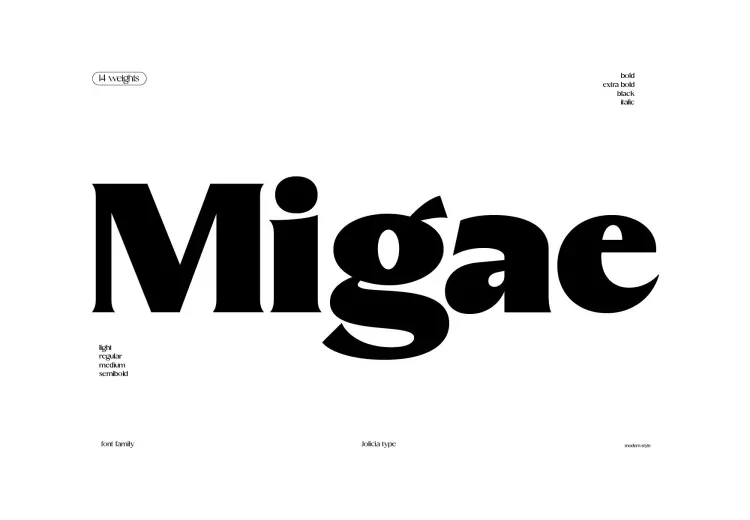
Migae Font
Migae is a sophisticated and versatile font crafted to captivate readers and enhance your designs. With 14 weight variations, ranging from the graceful Light to the commanding Black, and complemented by its italic styles, Migae seamlessly blends elegance with strength to suit diverse typography needs.
Whether you’re creating impactful headlines, polished branding, or stylish editorial layouts, Migae provides the flexibility and charm to elevate your projects. Its dynamic weight range ensures adaptability across various design contexts, maintaining an engaging visual presence.
Let Migae Font transform your creative ideas into stunning realities. Its timeless appeal and comprehensive style options make it the perfect choice for modern design solutions.